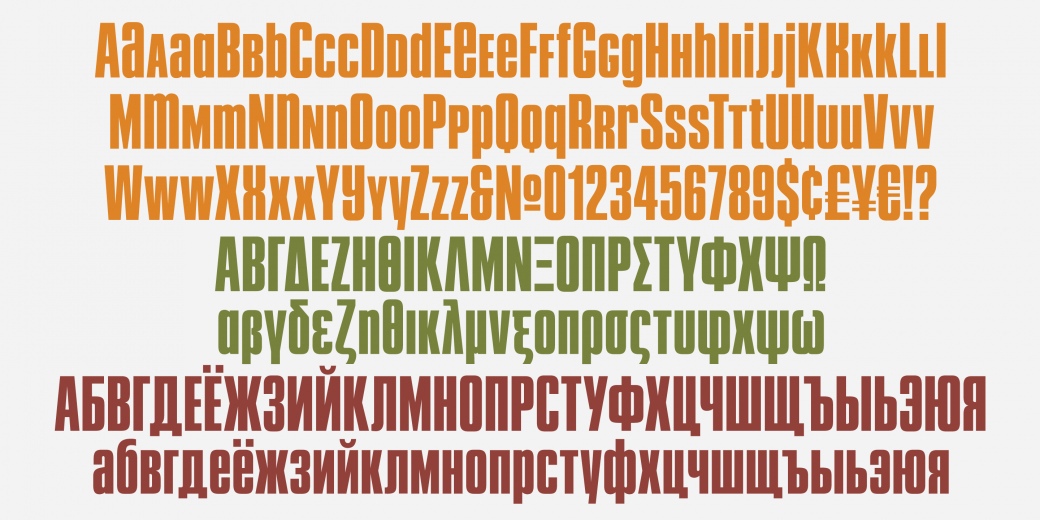
Press Gothic Pro Font
This font is perfect for newspaper headlines, news website banners, magazine mastheads, press release documents, journalism school materials, media company branding, broadcasting logos, and professional news publication layouts.
The Press Gothic Pro Font Free Download is exciting because it embodies the authoritative voice of professional journalism with its bold, commanding letterforms that instantly convey credibility and urgency in breaking news situations.
The Press Gothic Pro font family includes condensed, regular, medium, bold, and black weights, plus extended and compressed versions, providing designers with comprehensive typographic control for creating impactful news layouts and media branding systems.
Whether you're designing for major news organizations, digital media platforms, or broadcasting companies, the Press Gothic Pro Font delivers unparalleled authority and immediacy. Its precisely crafted letterforms showcase perfect balance between readability under pressure and dramatic visual impact, making it ideal for both breaking news alerts and in-depth feature articles. The font's journalistic character communicates trust and professionalism, making it particularly valuable for media brands requiring instant recognition and credibility. Professional designers value its exceptional legibility in high-stress reading environments and its consistent performance across print and digital platforms. The typeface's commanding presence reflects the critical importance of accurate news delivery while maintaining accessibility for diverse audiences. From front-page headlines to mobile news apps, this font adapts flawlessly to any media application. The Press Gothic Pro Font Free Download represents outstanding value for designers seeking typography that embodies the fourth estate's mission. Its timeless news appeal ensures lasting relevance in rapidly evolving media landscapes, while its various weights accommodate different editorial priorities. The font's optimized spacing and urgent character create compelling news presentations that capture reader attention and communicate the vital importance of staying informed in our democratic society.